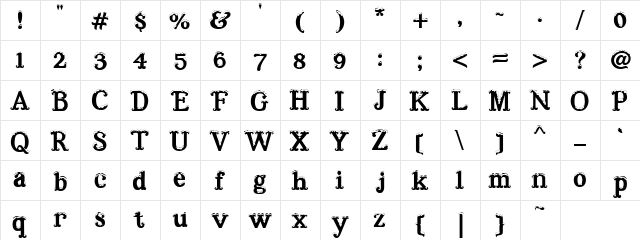
Clipz snowcap Regular Font Preview
Clipz snowcap Regular
Design Context for Clipz snowcap Typeface
Clipz snowcap is a composed and adaptable typeface that performs quietly and consistently across a wide range of design contexts.